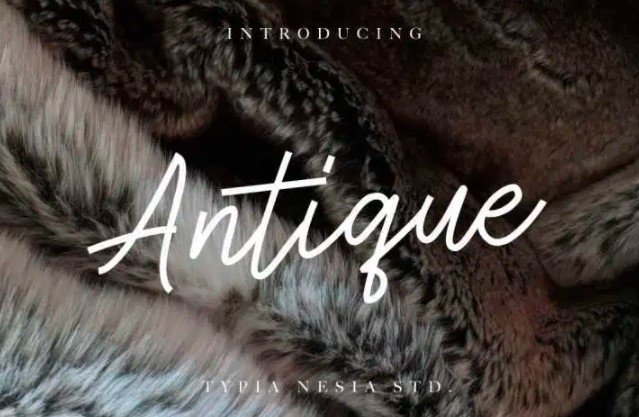
Hello everyone, we are offering the distinctive and expertly crafted Antique Script Font, renowned for its incredible brushstroke texture and appearance. This font was brought to you by Typia Nesia, a well-known design company.
The font contains more than 340 glyphs and different variants of styles, which allows you to use it for making any monoline calligraphic work easily with this font.
View Of Antique Script Font
This typeface that have catcy look have lots of huge glyphs including uppercase and lowercase letters. Let’s view the picture below to see the sample.
It is decent, elegant and amazing texture that works smartly in every situation or in every type of project. You can use with the combination of rassvet font.
The font contains beautiful brushed texture which is suitable for all types of projects. You can use this font in the below listed projects.
| Name | Antique Script Font |
| Designer | Typia Nesia |
What Type of Font Is Antique Script?
The Antique Script Font is the famous and amazing typeface which was product of Typia Nesia.